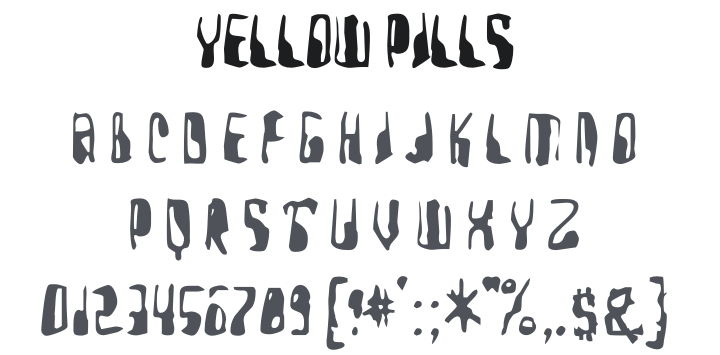
Yellow Pills Font
About Yellow Pills
Yellow Pills is a bold, heavily distorted display typeface where thick, chunky letterforms appear melted and warped — strokes bulge, sag, and collapse unevenly as if the type was printed on rubber and then stretched and twisted in all directions. The organic, liquid distortion gives every word a trippy, hallucinogenic quality. Perfect for psychedelic posters, underground music graphics, horror-comedy designs, and any headline needing a gloriously unhinged, melted personality.